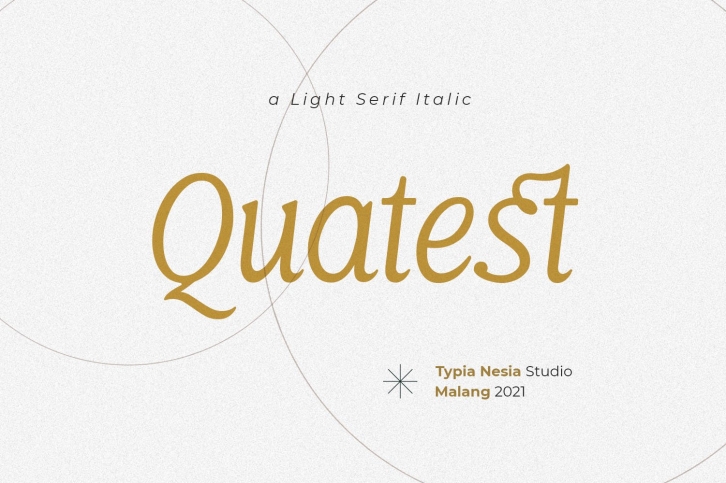
Quatest Italic is a gorgeous font that was realeased on March 28, 2021. The font can be used in many style contexts and design environments. Perfect for invitations, magazines, websites, logos, and more! It was designed by Typia nesia and the file size is 14.34 MB. Thanks for checking out this font!